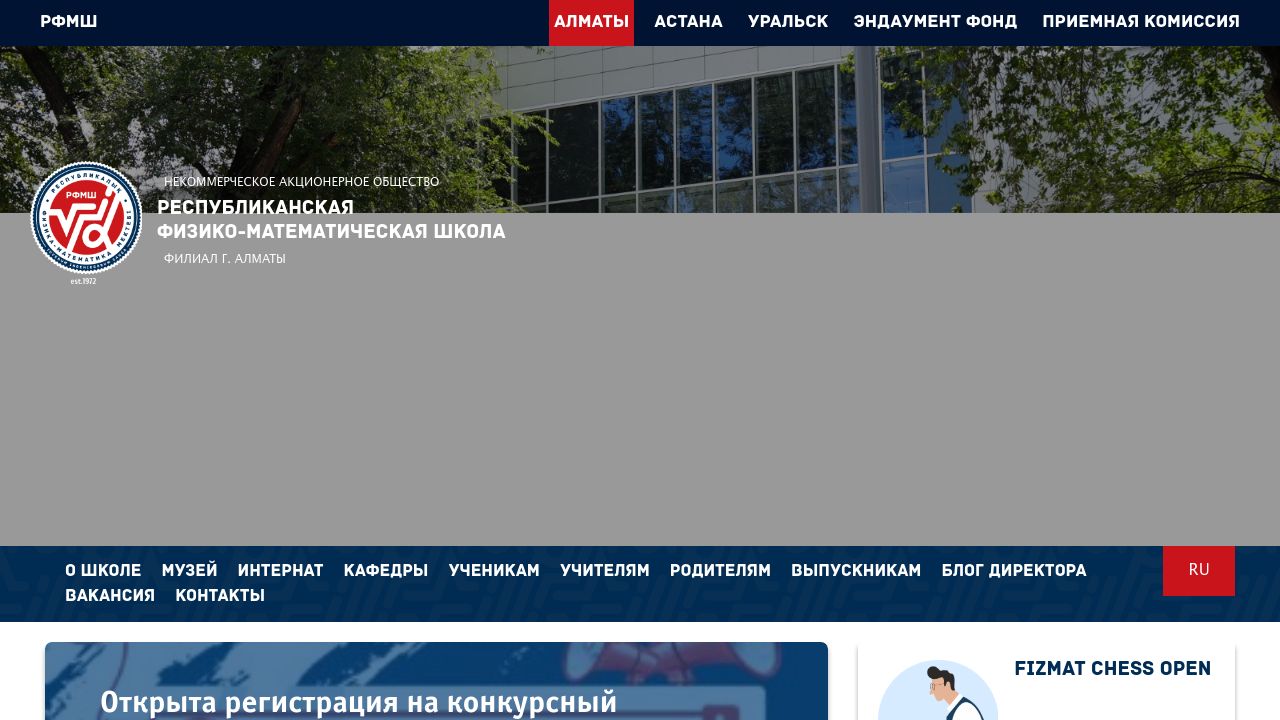
almaty.fizmat.kz: What fonts does Almaty use? - Arial, helvetica-neue, Menlo
What fonts does Almaty use?
The website almaty.fizmat.kz, associated with РФМШ Алматы, utilizes a diverse range of fonts to create a distinctive visual identity. Primary fonts like Arial and helvetica-neue provide a clean and accessible look, while Menlo adds a touch of modernity. Custom fonts such as OfficinaSans and FontAwesome enhance functionality, especially in iconography. This thoughtful selection caters to an audience engaged in education and technology, reflecting clarity and innovation in their design choices.
Used for UI icons rather than readable text - no preview available.
What fonts are used on almaty.fizmat.kz?
The primary fonts include Arial, helvetica-neue, Menlo, and several custom fonts like OfficinaSans and FontAwesome.
How do the fonts on almaty.fizmat.kz compare to alternatives?
Fonts like Arial and helvetica-neue are widely used for their legibility, while OfficinaSans provides a unique style that sets the site apart from standard web fonts.
What styles and weights are used in the fonts on almaty.fizmat.kz?
Most primary fonts, including Arial and OfficinaSans, are used at a weight of 400, providing a consistent visual experience across the site.
What role does FontAwesome play on almaty.fizmat.kz?
FontAwesome is utilized for icons and graphical elements, enhancing the site's functionality and visual appeal without compromising performance.